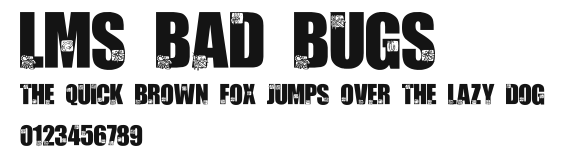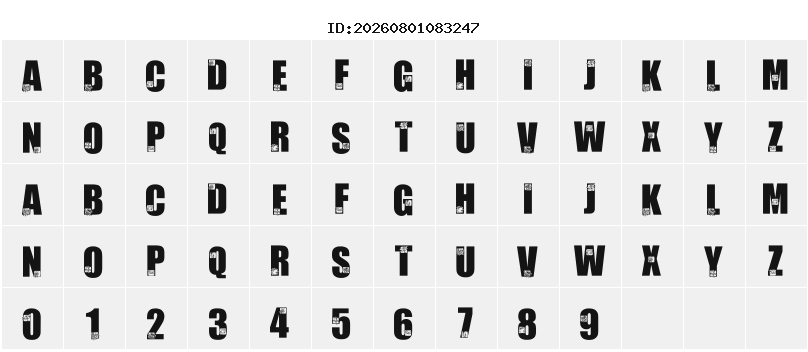
• Font Name: LMS Bad Bugs
• Full Font Name: LMS Bad Bugs
About LMS Bad Bugs.ttf
LMS Bad Bugs.ttf is a modern, elegant sans-serif font designed for ultimate readability and visual harmony. Perfect for branding, headlines, web design, and print materials.